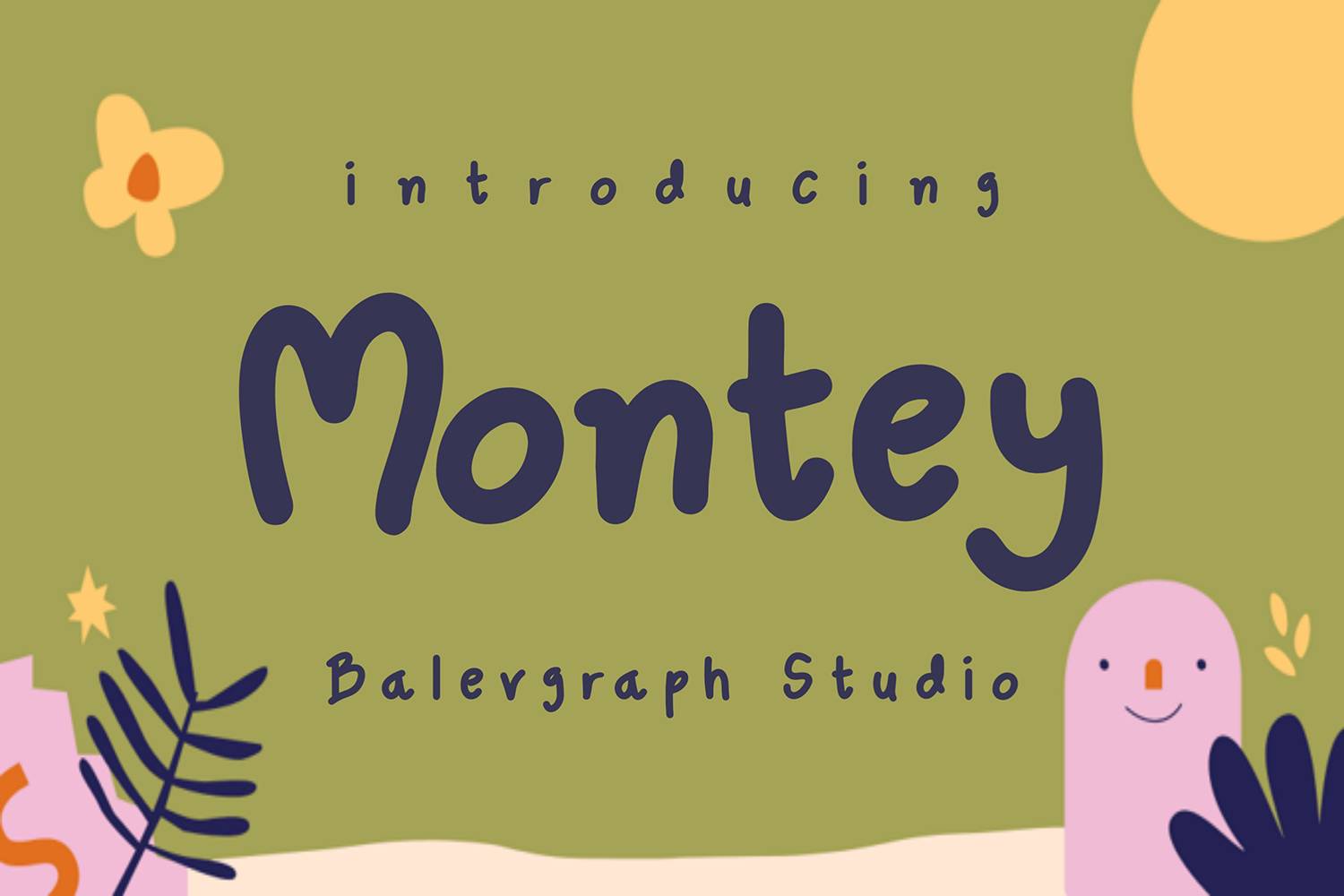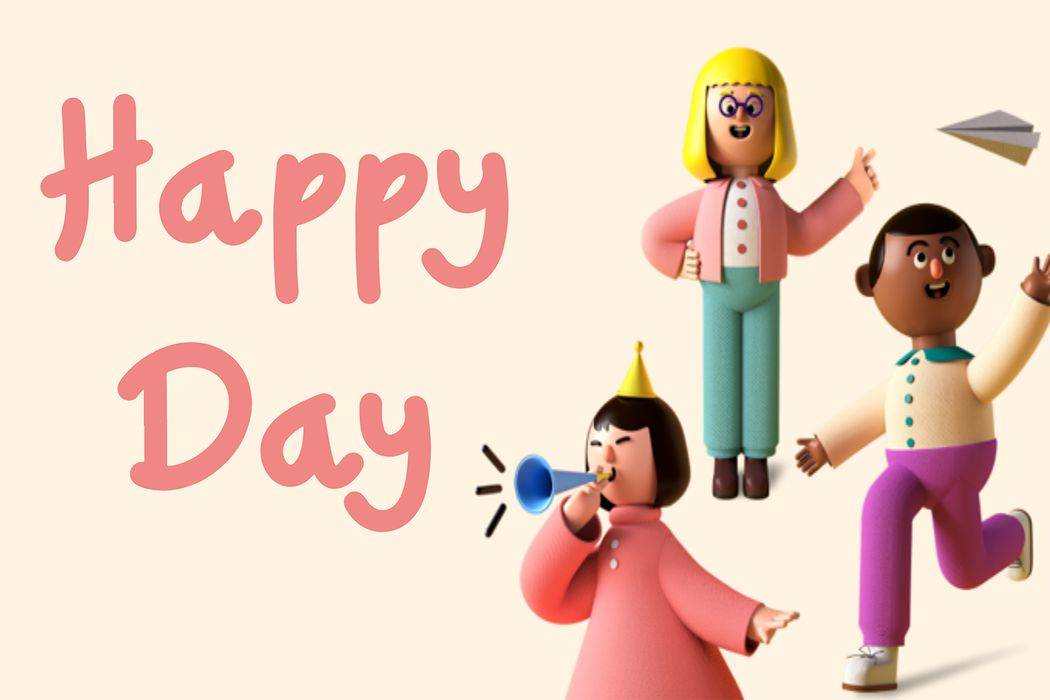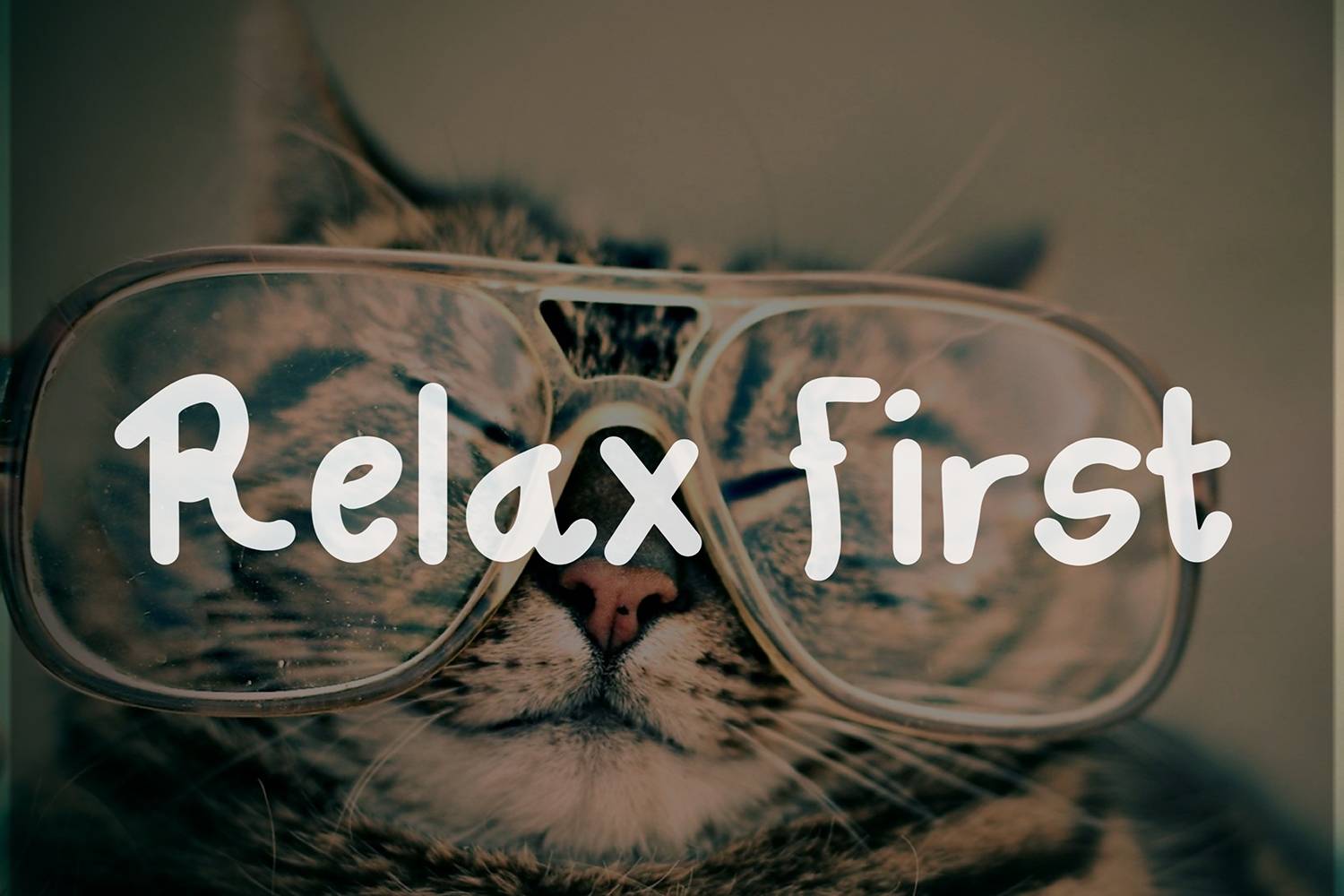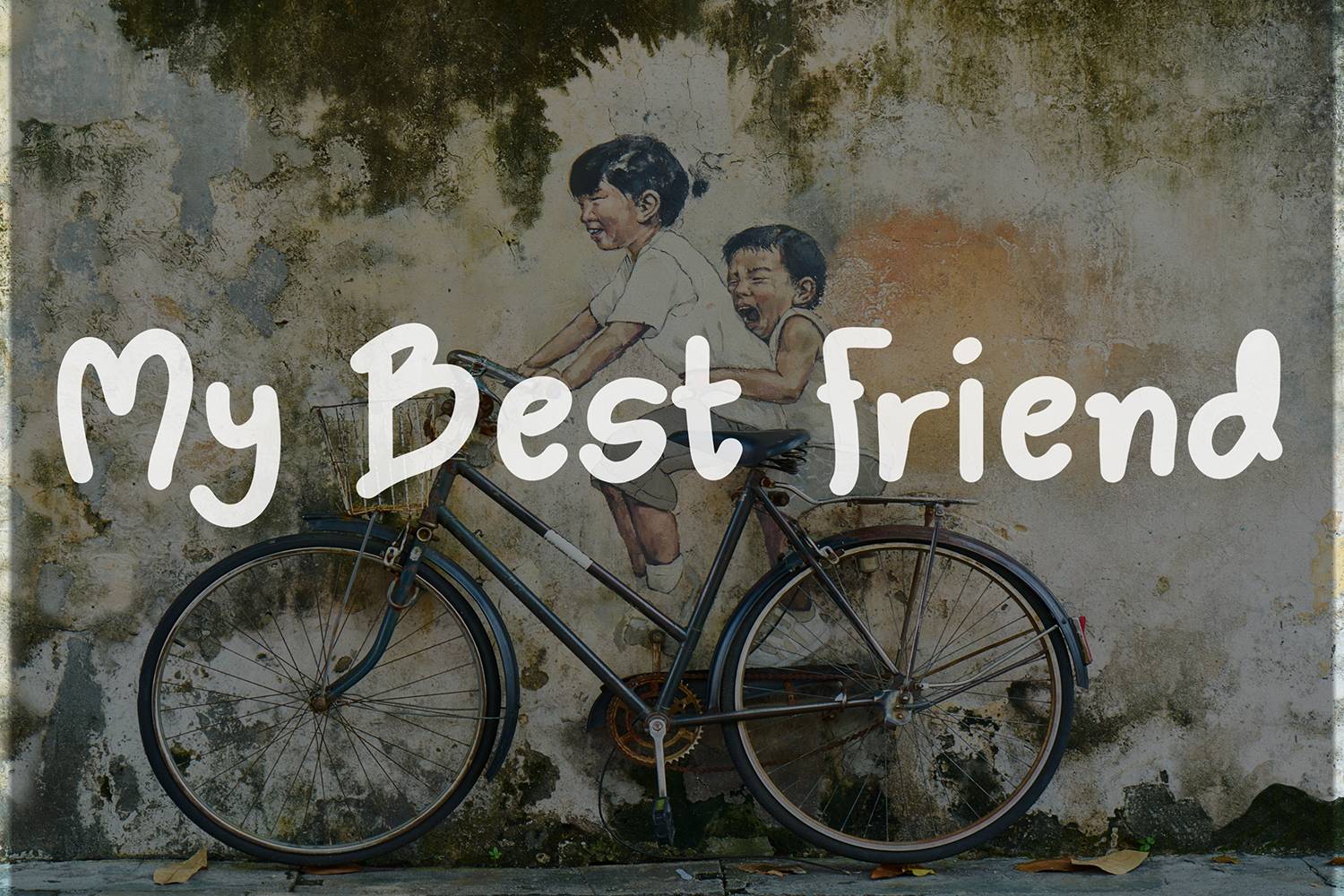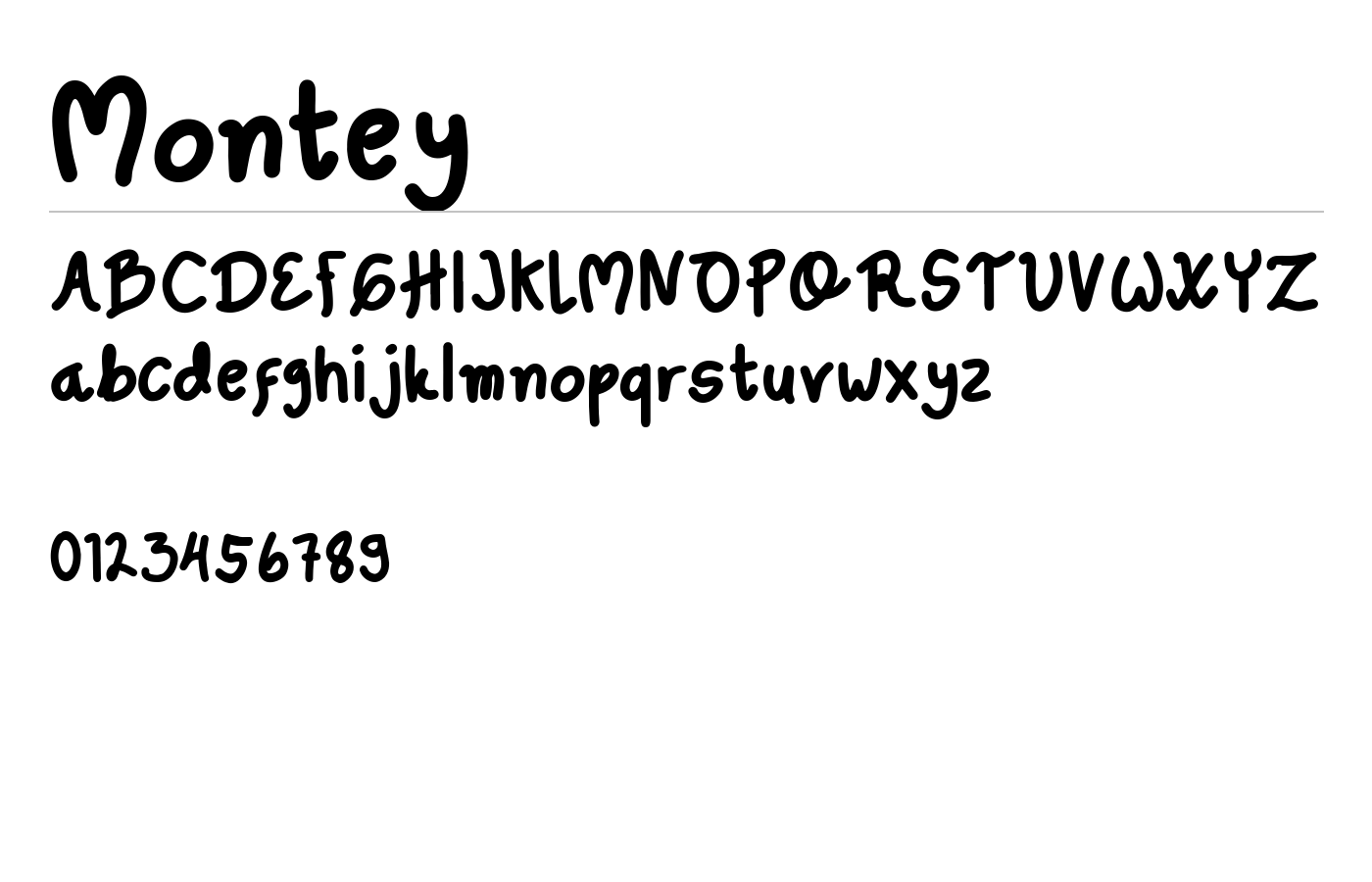
Montey is a playful and casual handwritten font with a friendly, rounded style that feels approachable and informal. Its smooth, slightly irregular letterforms and moderate weight make it perfect for projects that want to convey warmth and creativity, such as children’s books, casual branding, or fun headlines. This font works well where a personal touch or whimsical character is desired, bringing a lively and cheerful vibe to any design.
| Designer | Mukti Indra Subagja |